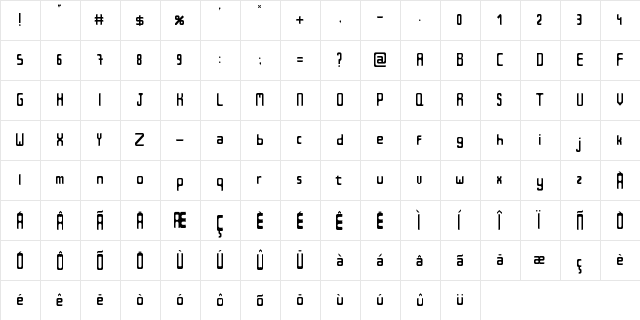
Dear Granny Regular
| Designer | Tolita CARRERA |
Design Context for Dear Granny Typeface
Dear Granny offers clean, dependable letterforms without strong stylistic allegiance, making it a practical choice for designers who need flexibility.